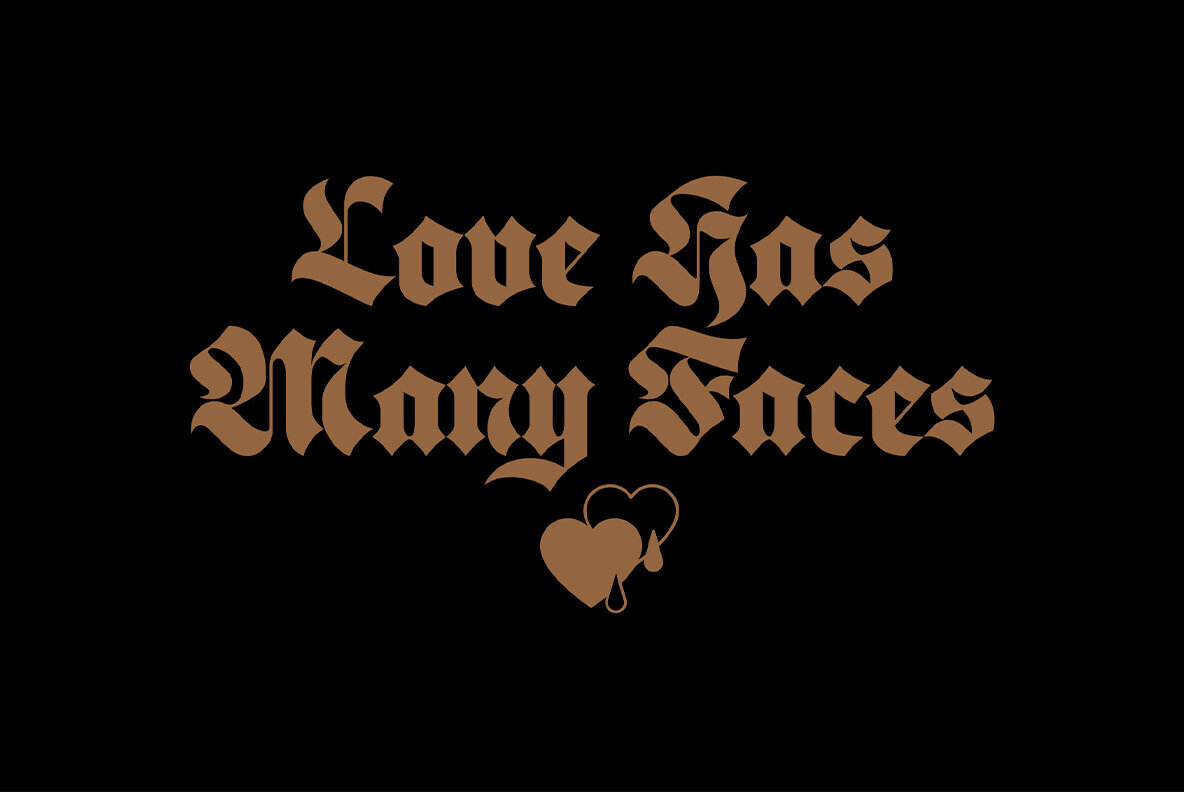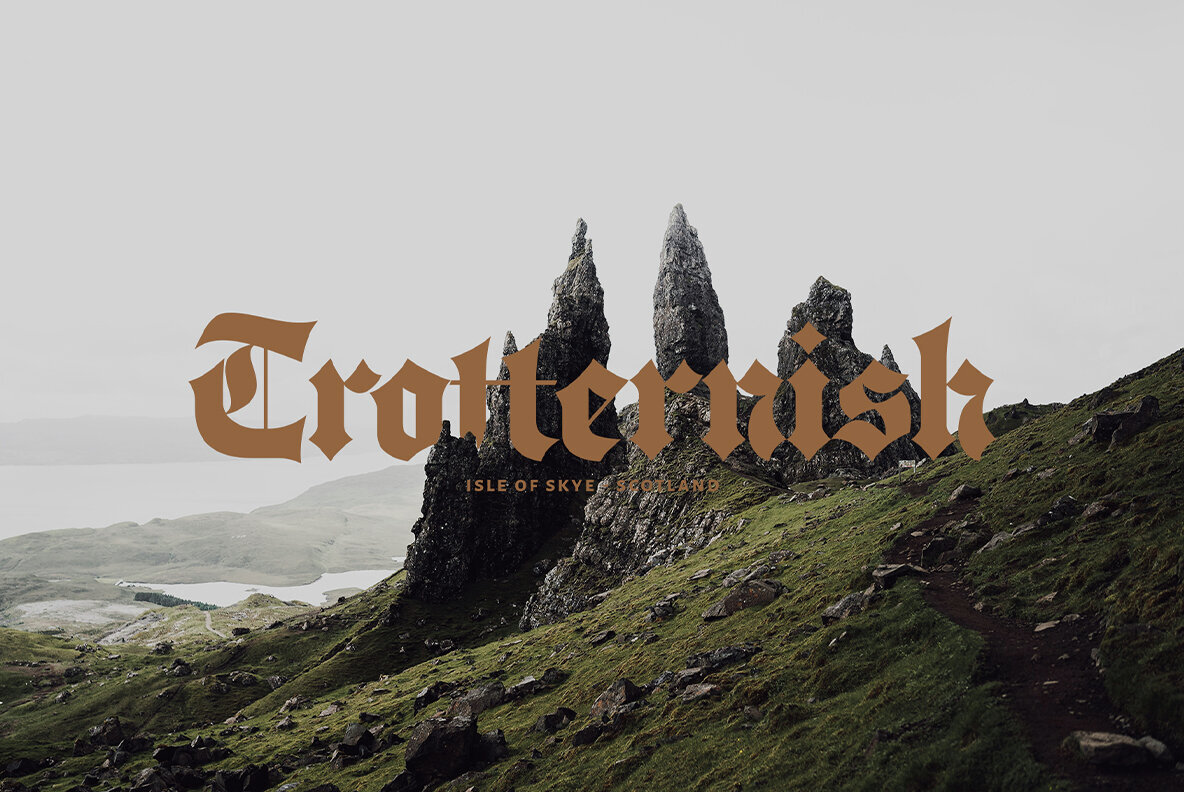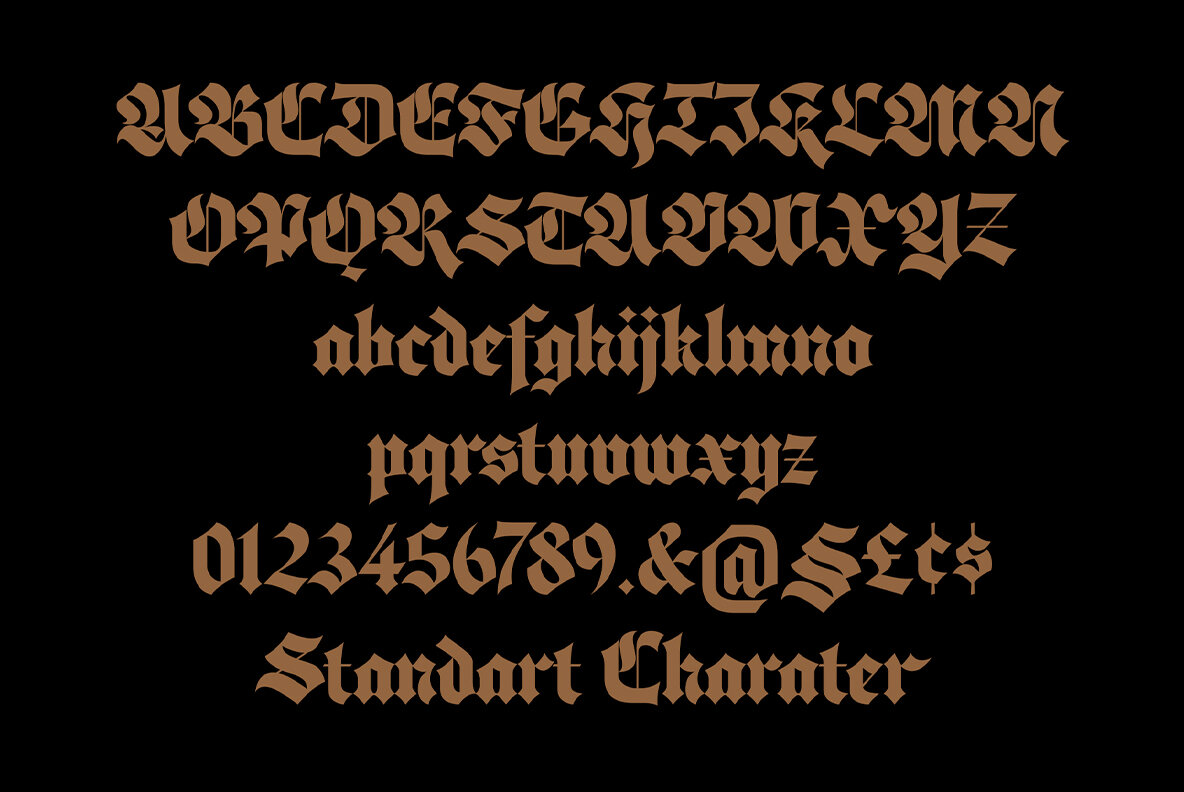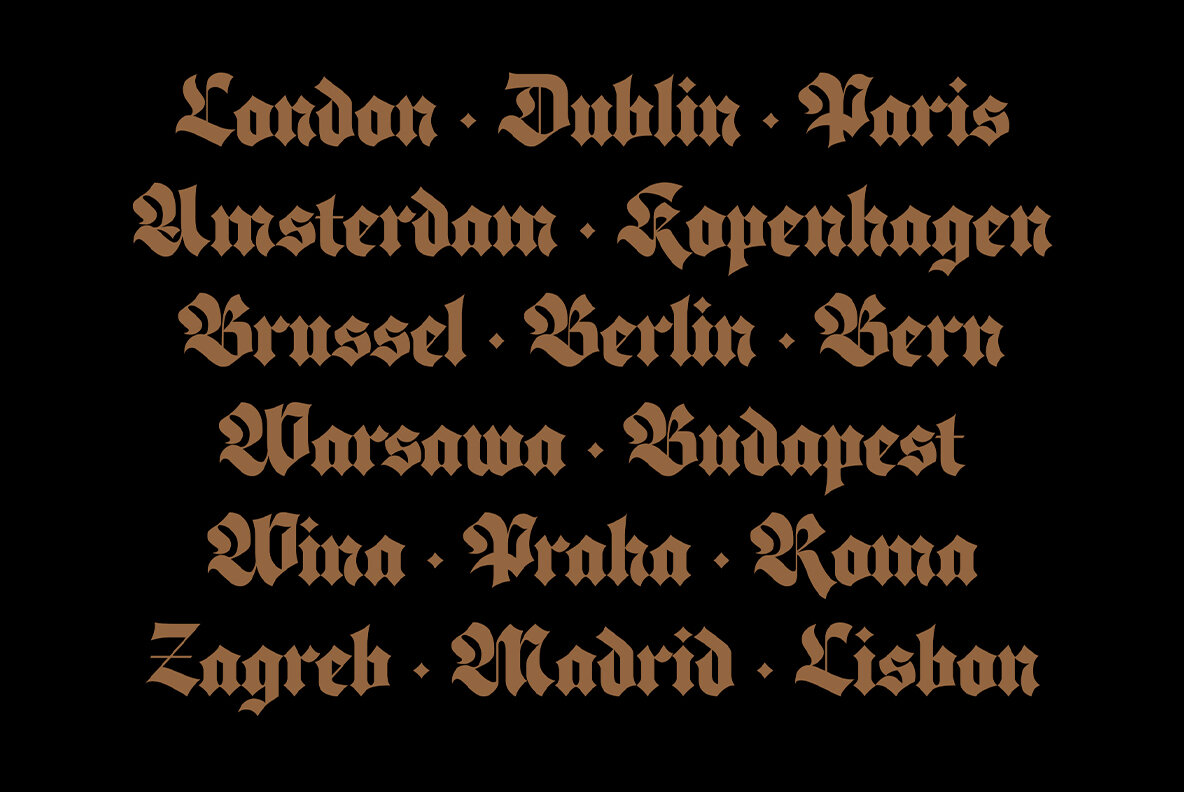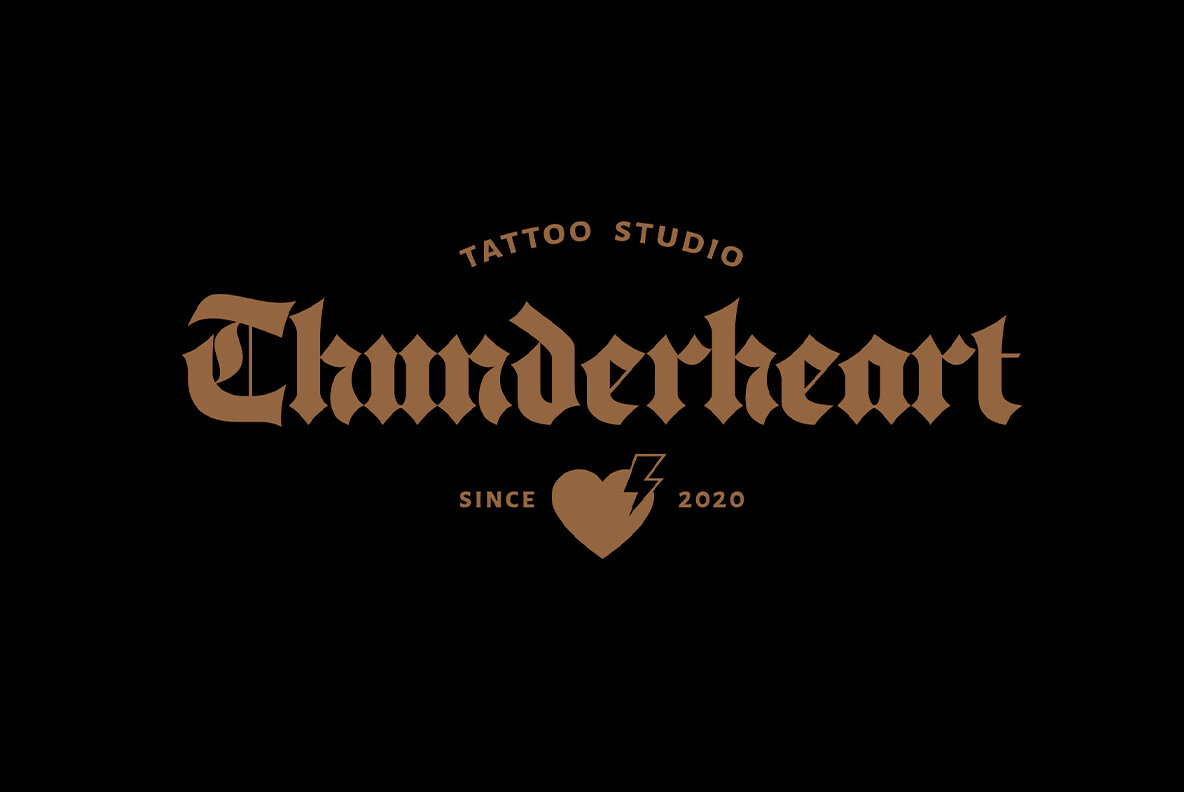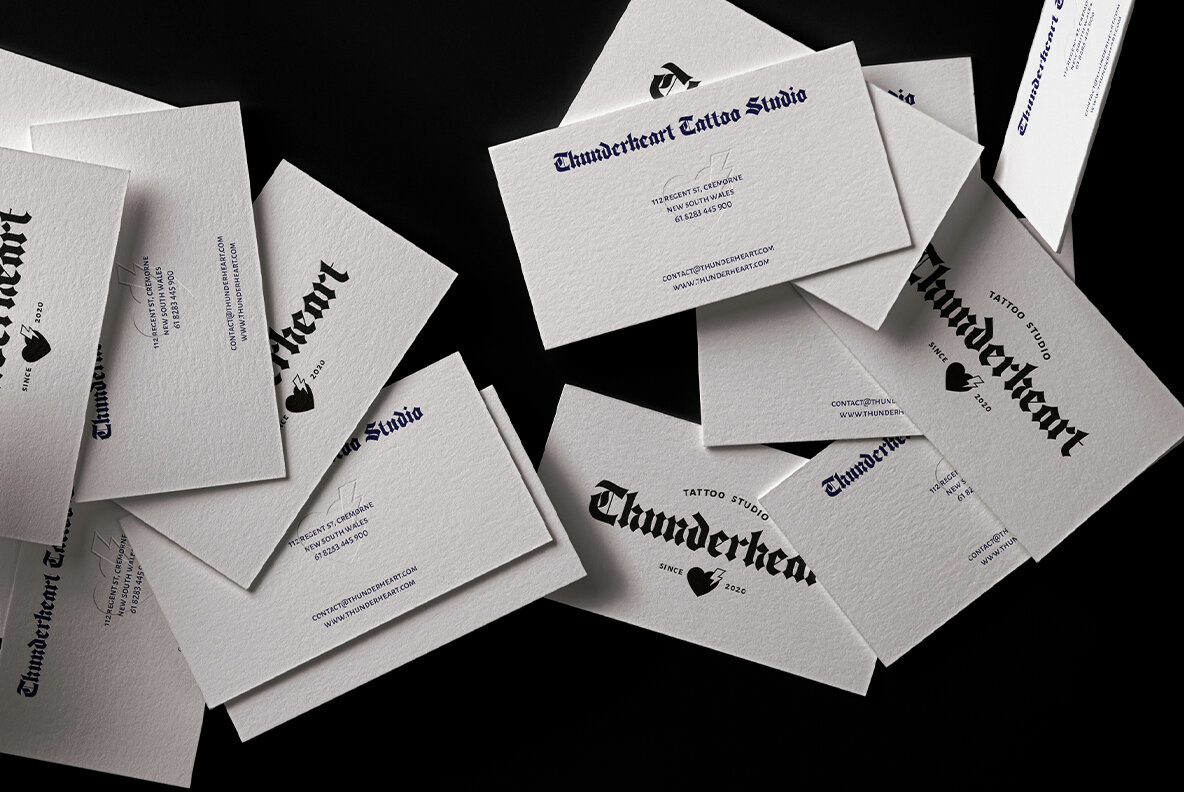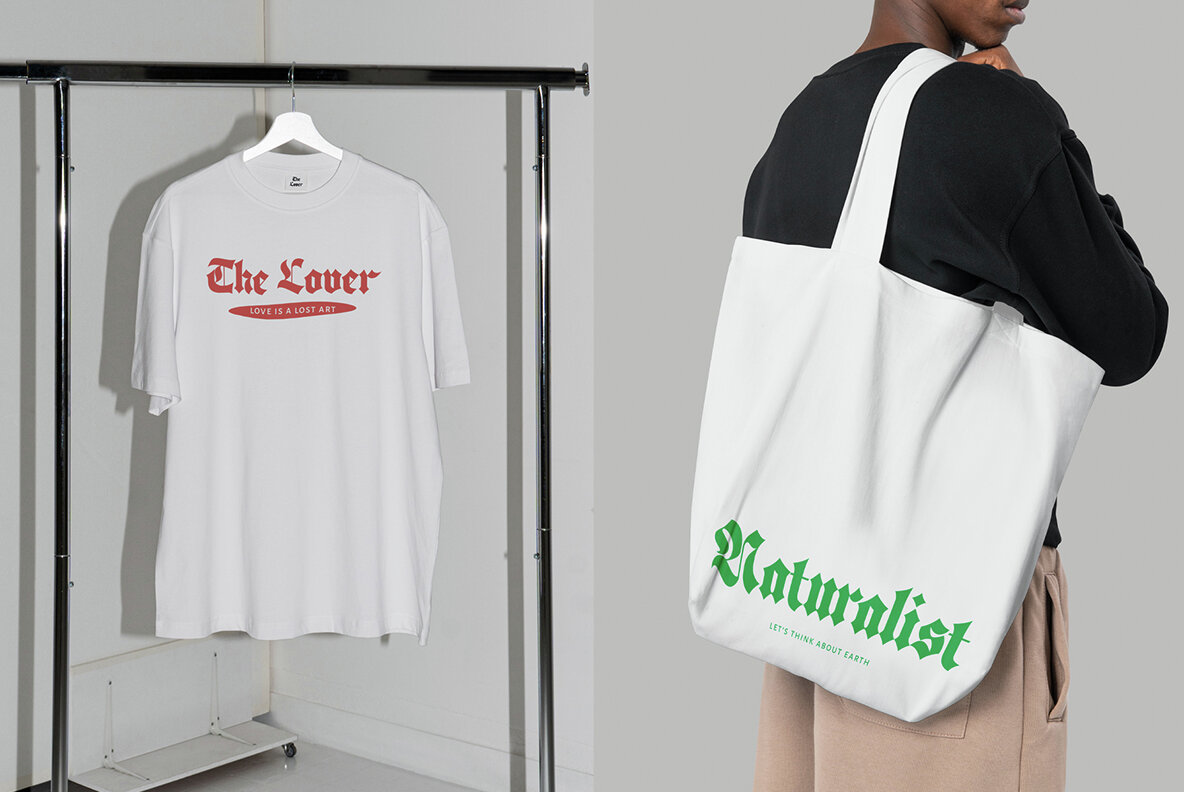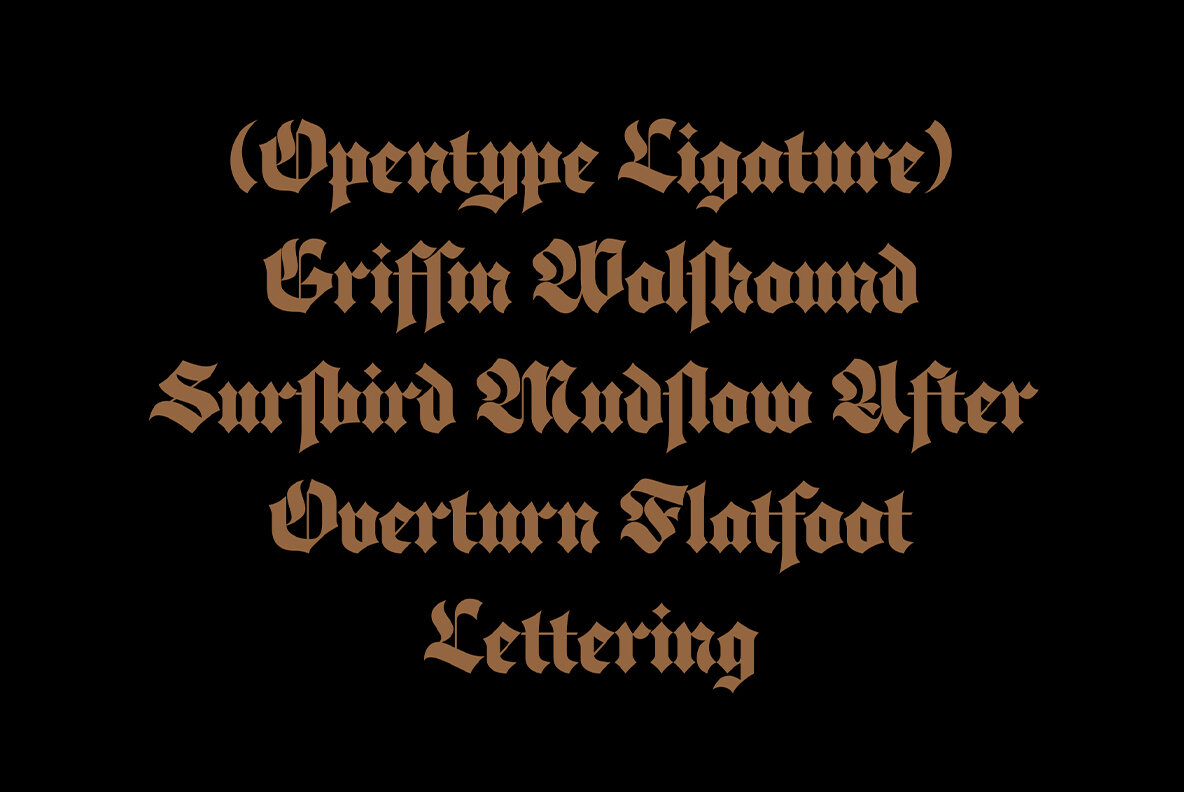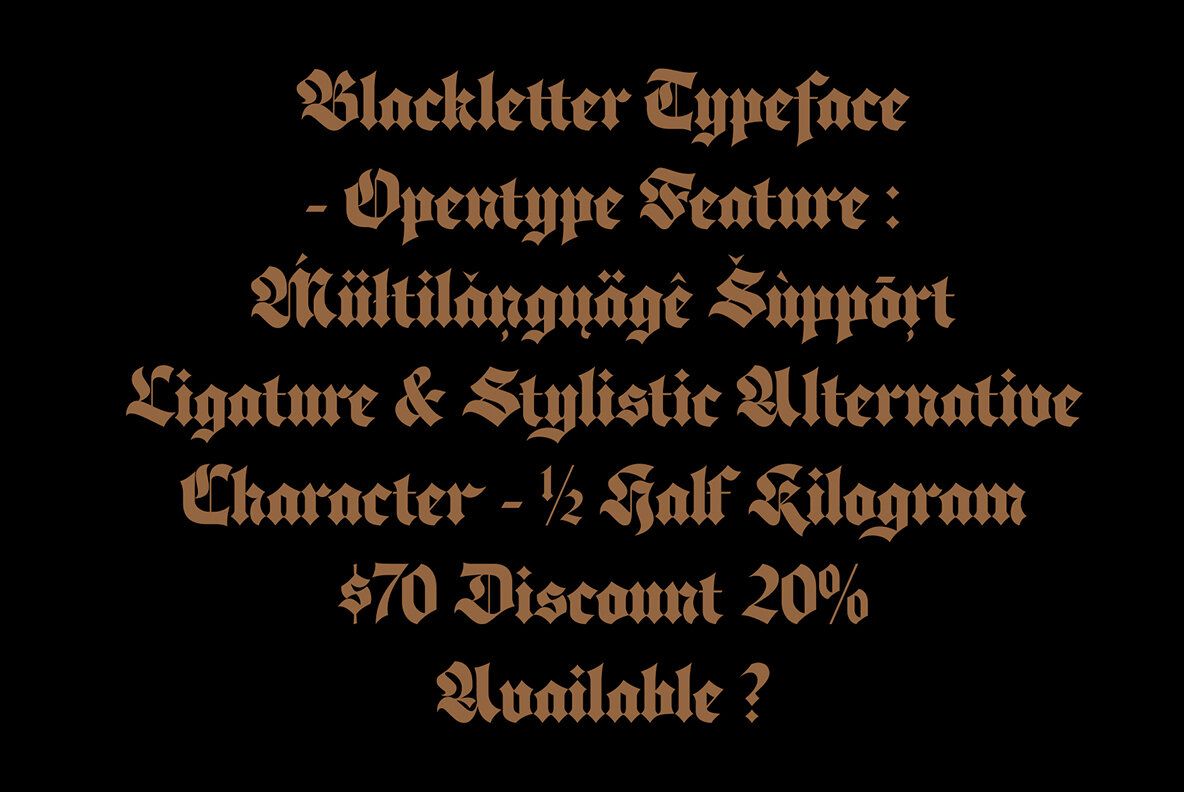
ED Cortinada Font
ED Cortinada Regular
Cortinada is a blackletter font of the fraktur type made in a modern classic style with a firm edge. This font is also supported by several OpenType features such as alternative characters, Ligatures, and multilingual support. this font is perfect for logo design, branding, posters, apparel, books, etc.